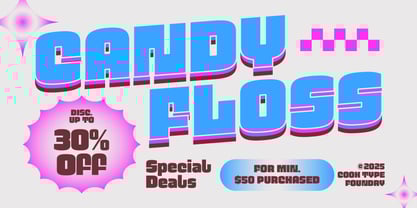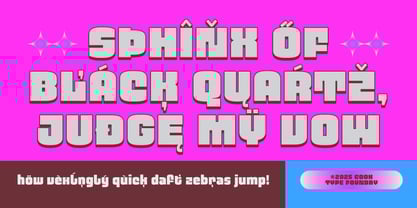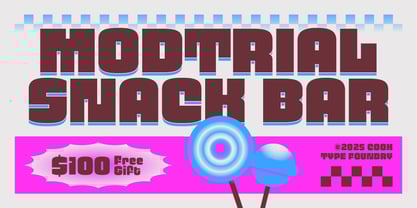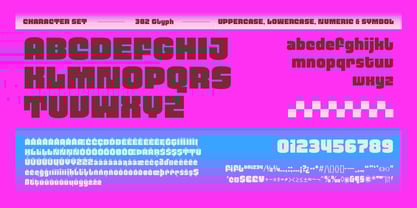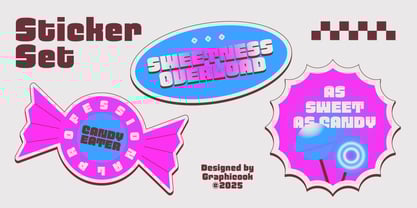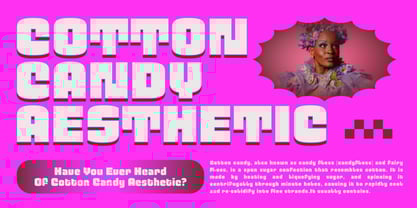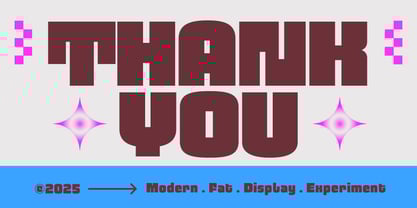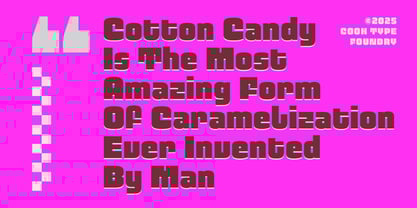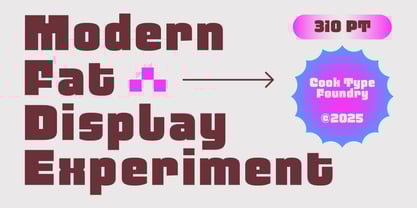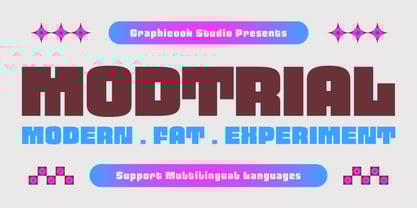
Cook Modtrial
by Graphicook Studio
The Cook Modtrial Font Family was designed by Gumilar Febriansyah and published by Graphicook Studio. Cook Modtrial contains 1 styles. More about this family
Modtrial is an experimental font with fat letterforms and a bold minimalist design, creating a strong and impactful impression. Great for headlines, logos, or posters for electronic music and festivals. It is perfect for headlines, logotypes, magazines, packaging, quotes, movies, games, cover albums, book covers, and flyers, it's a perfect solution for creating eye-catching designs that stand out in any context.